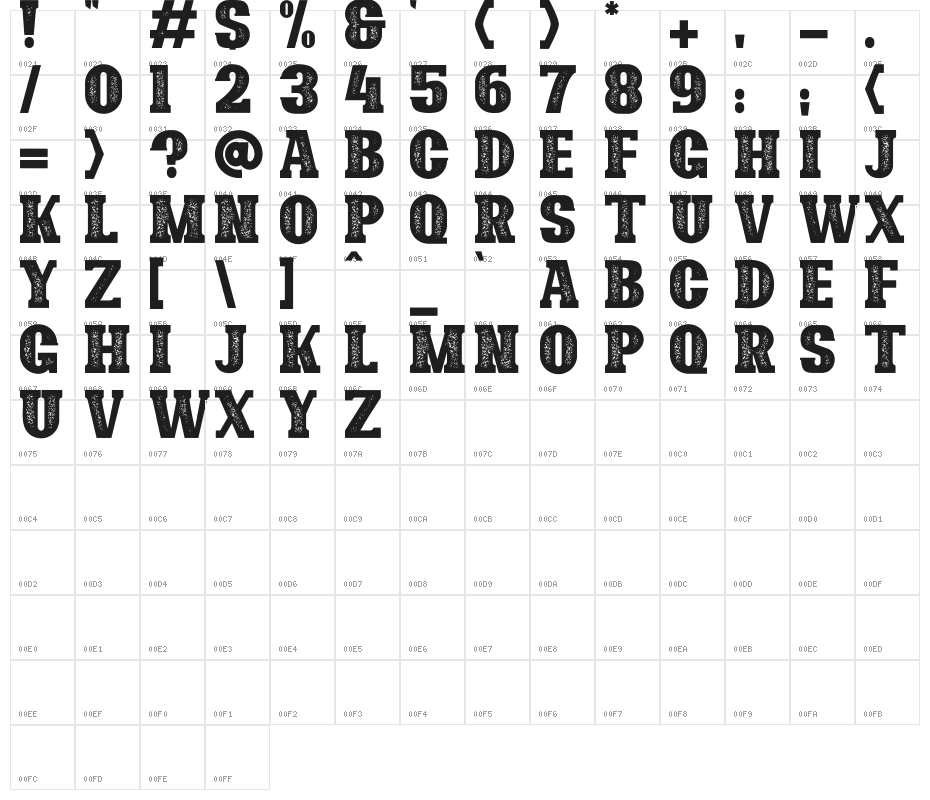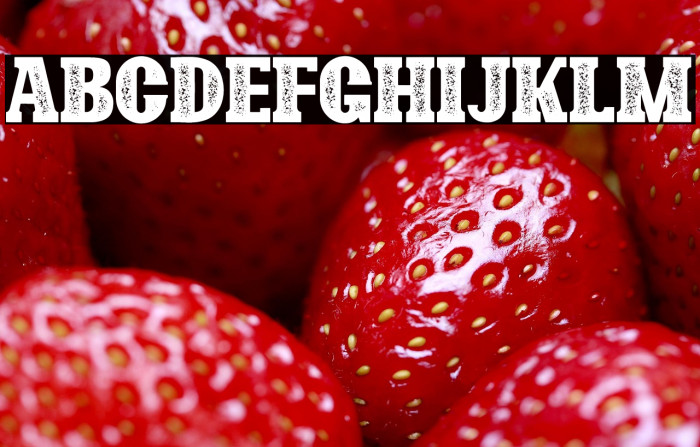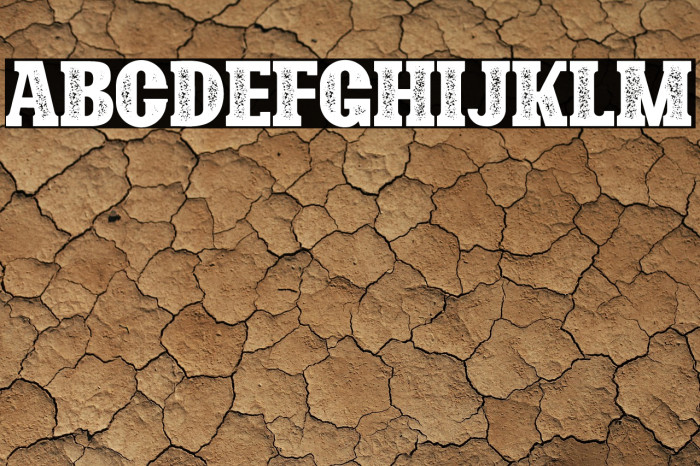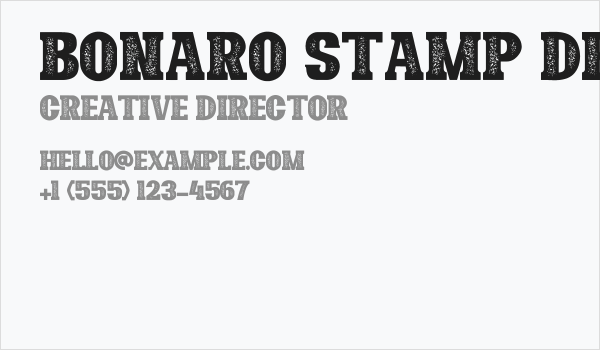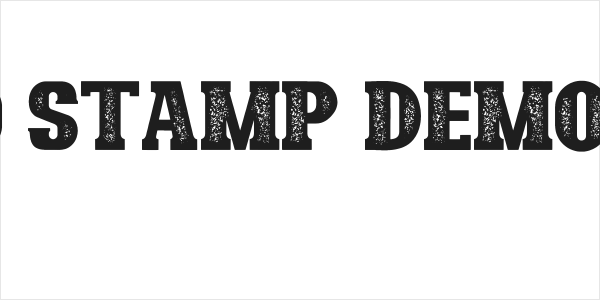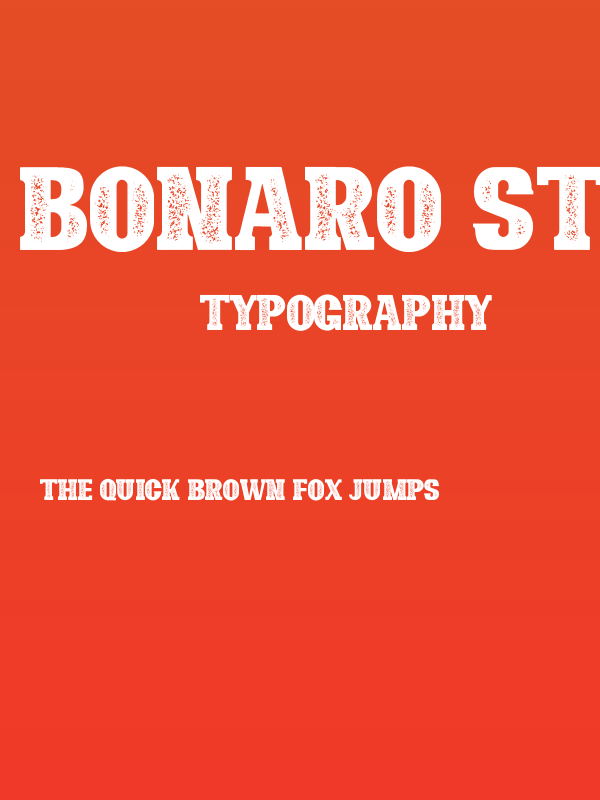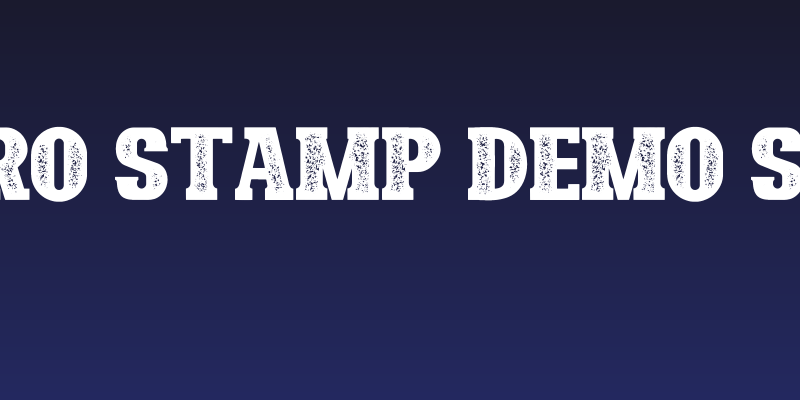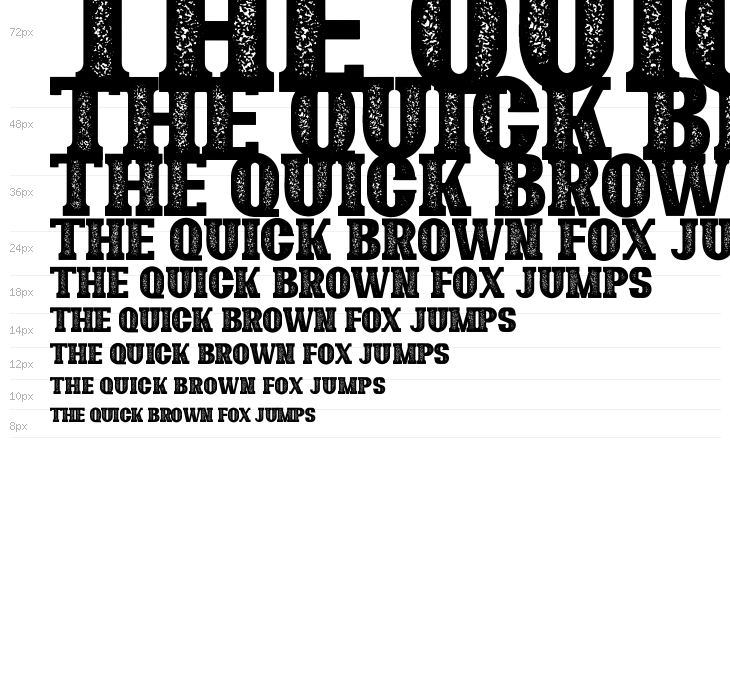
Bonaro Stamp Demo Stamp Font
Bonaro Stamp Demo Stamp Description
This font features a bold, distressed style reminiscent of vintage rubber stamps. Each character is designed with a textured, worn appearance, giving it an authentic, rugged feel. The uppercase letters are prominent and commanding, while the numerals and special characters maintain the same boldness and texture. The font's design is ideal for creating a retro or industrial aesthetic, making it suitable for projects that require a strong, impactful visual presence. Its unique style can add character and depth to various design elements.
| Proposed Projects | Ideal for vintage-themed posters, logos, branding, packaging, and signage that require a strong, textured look. |